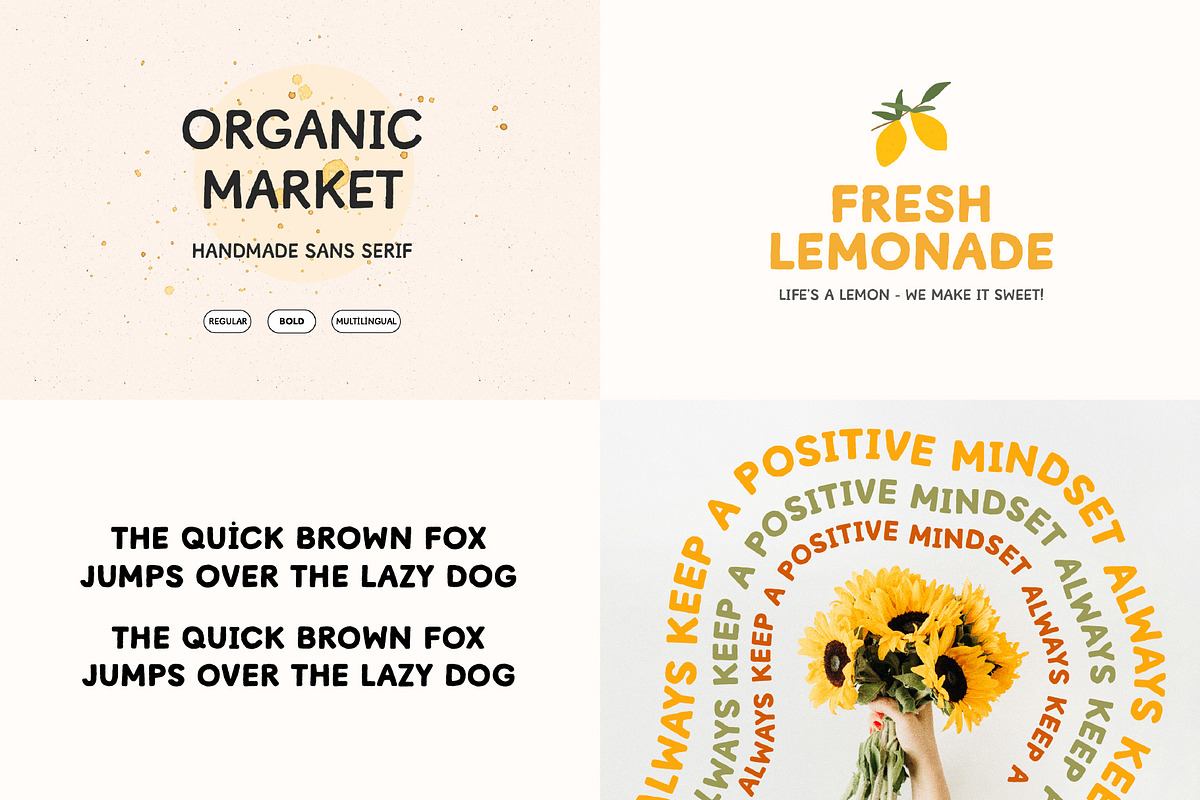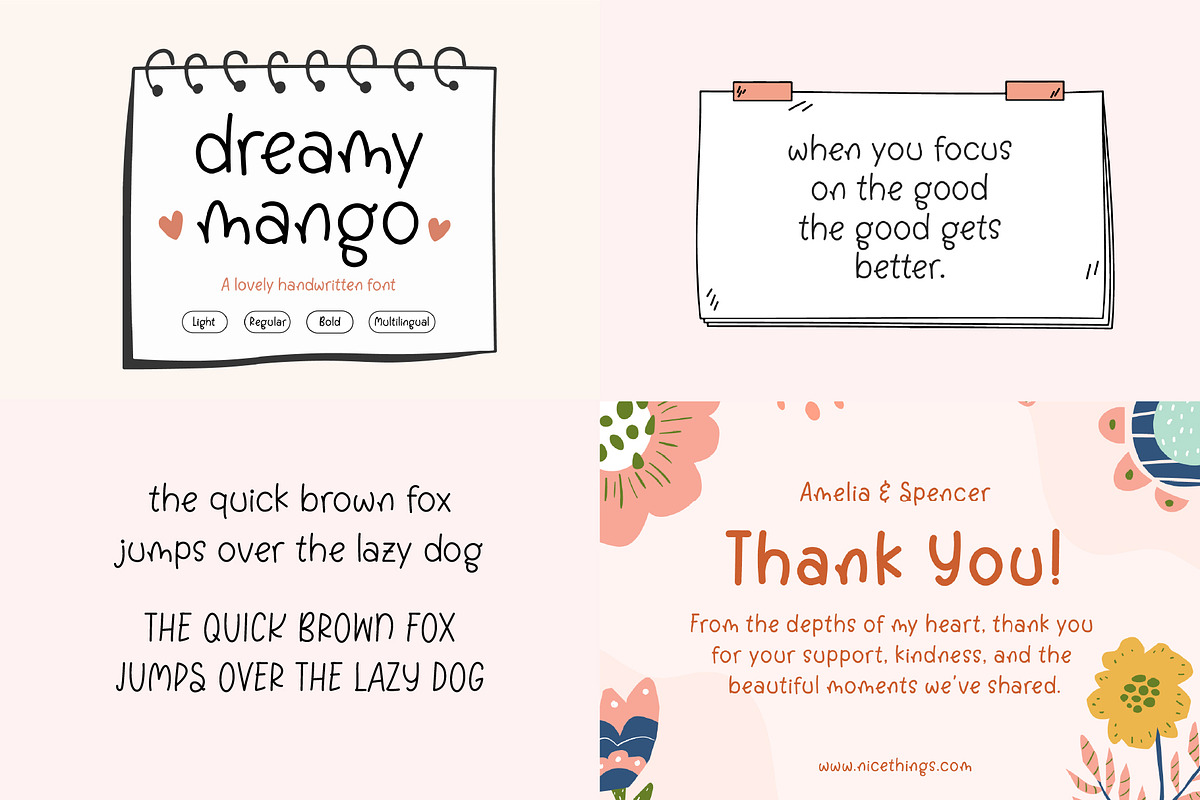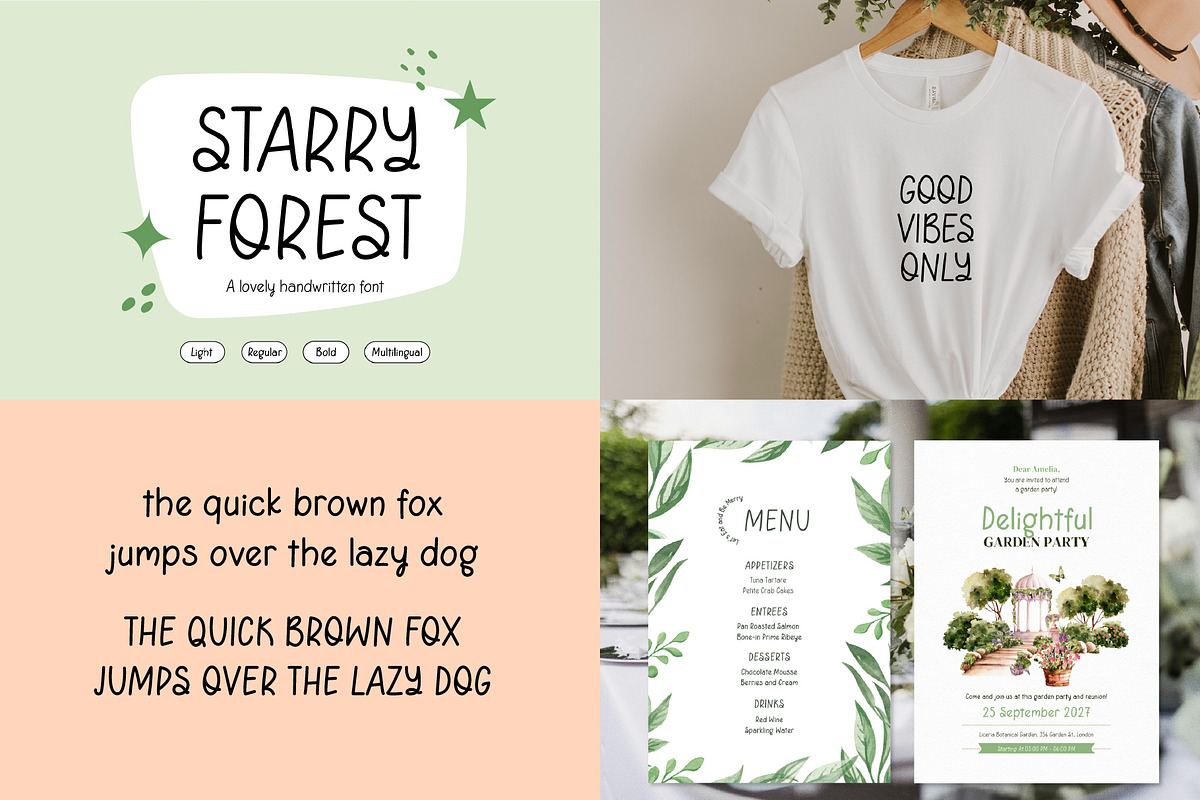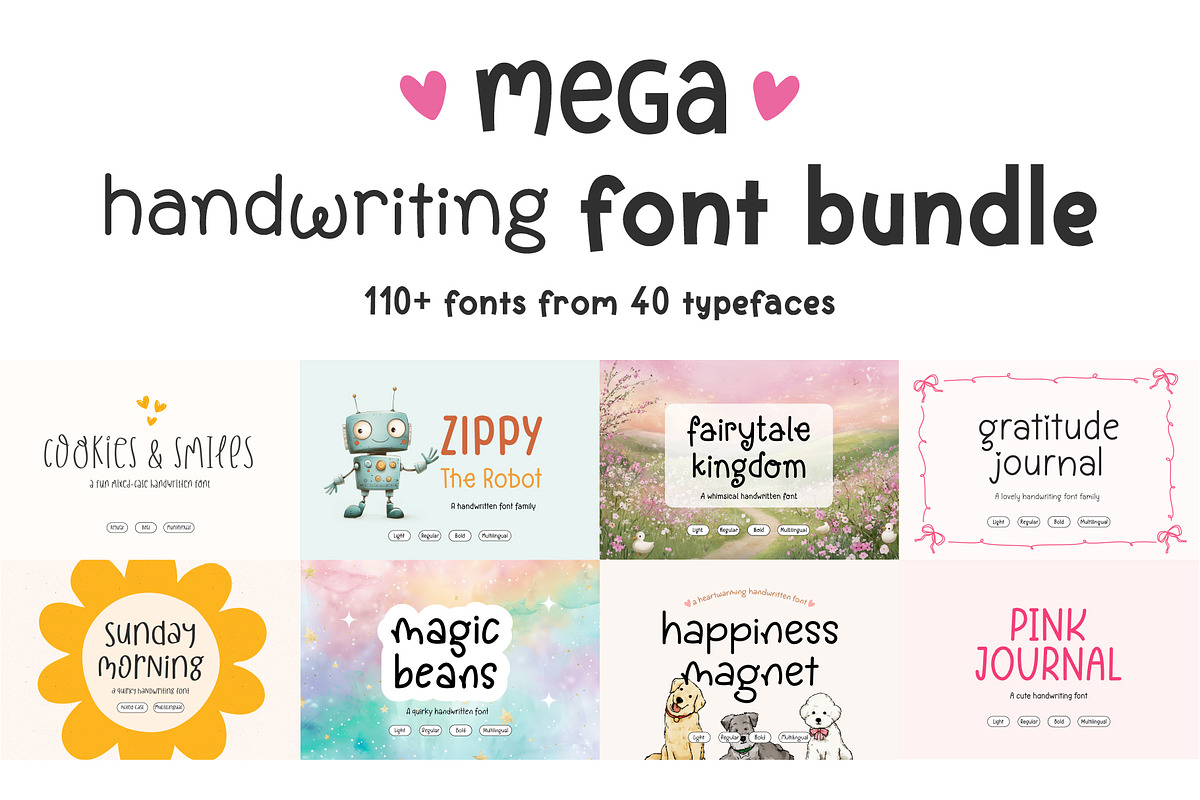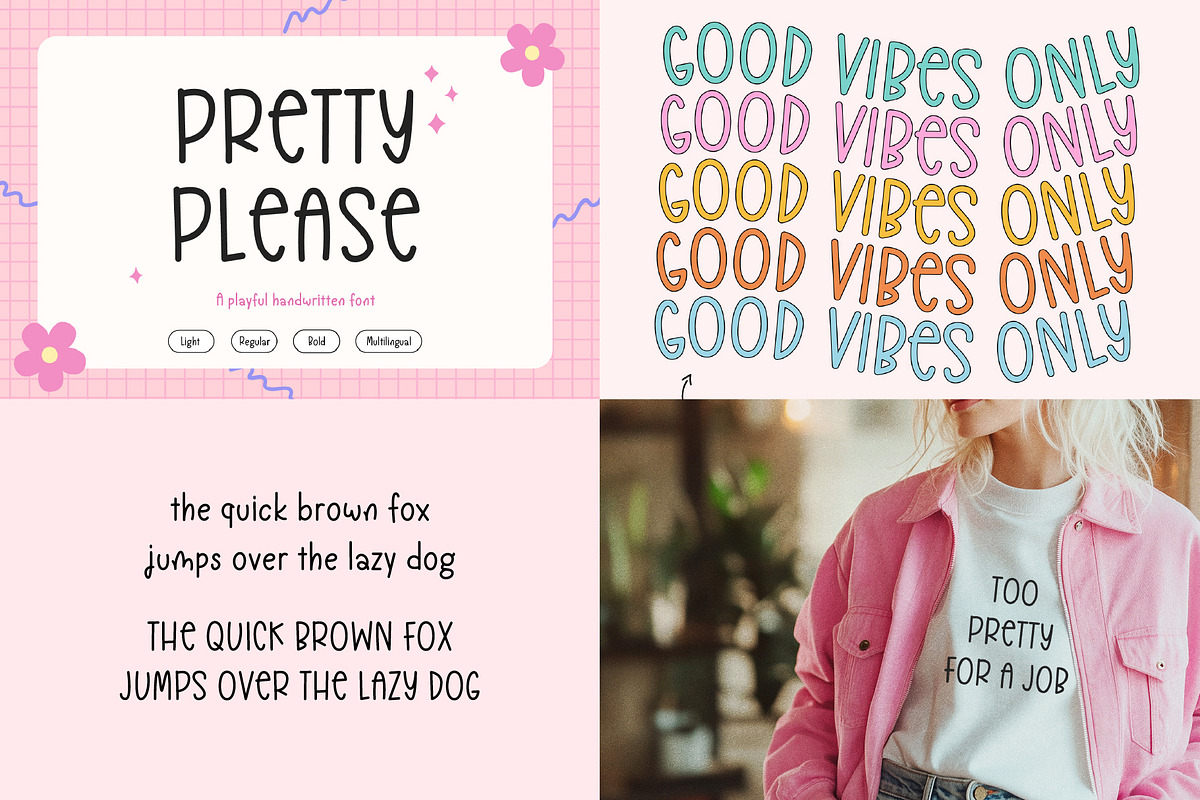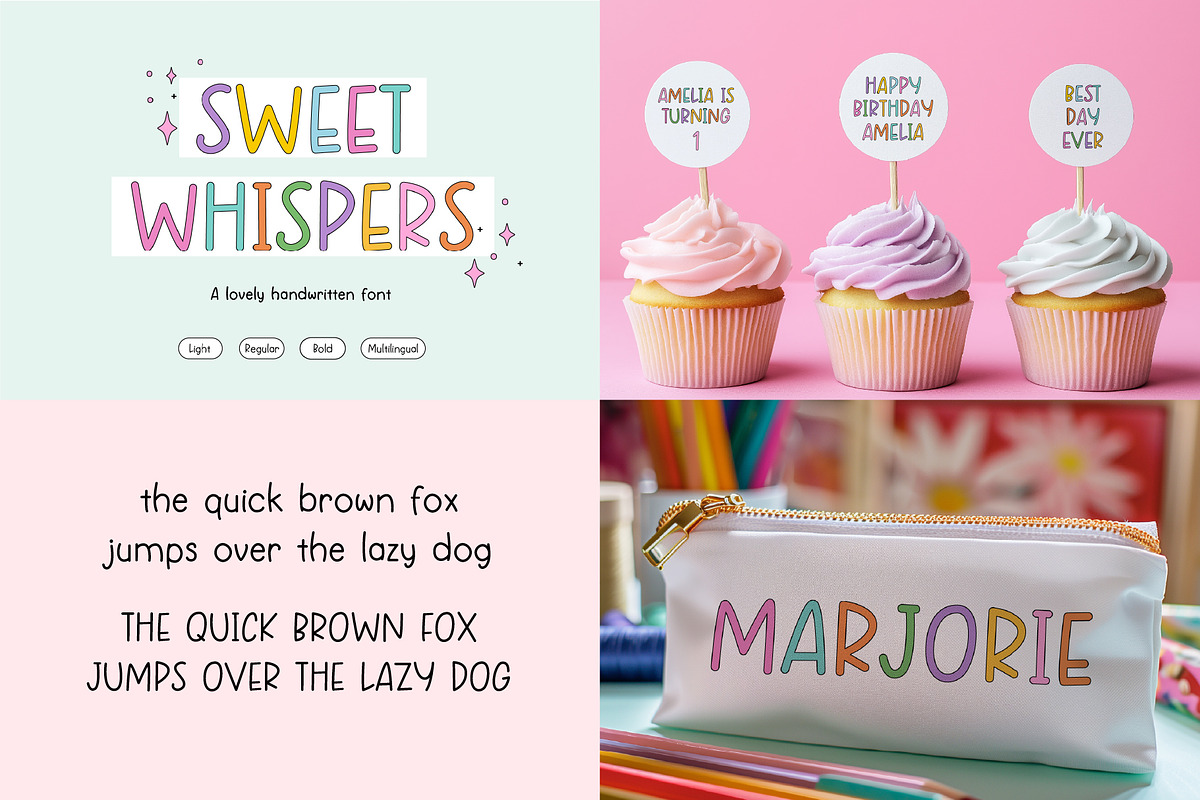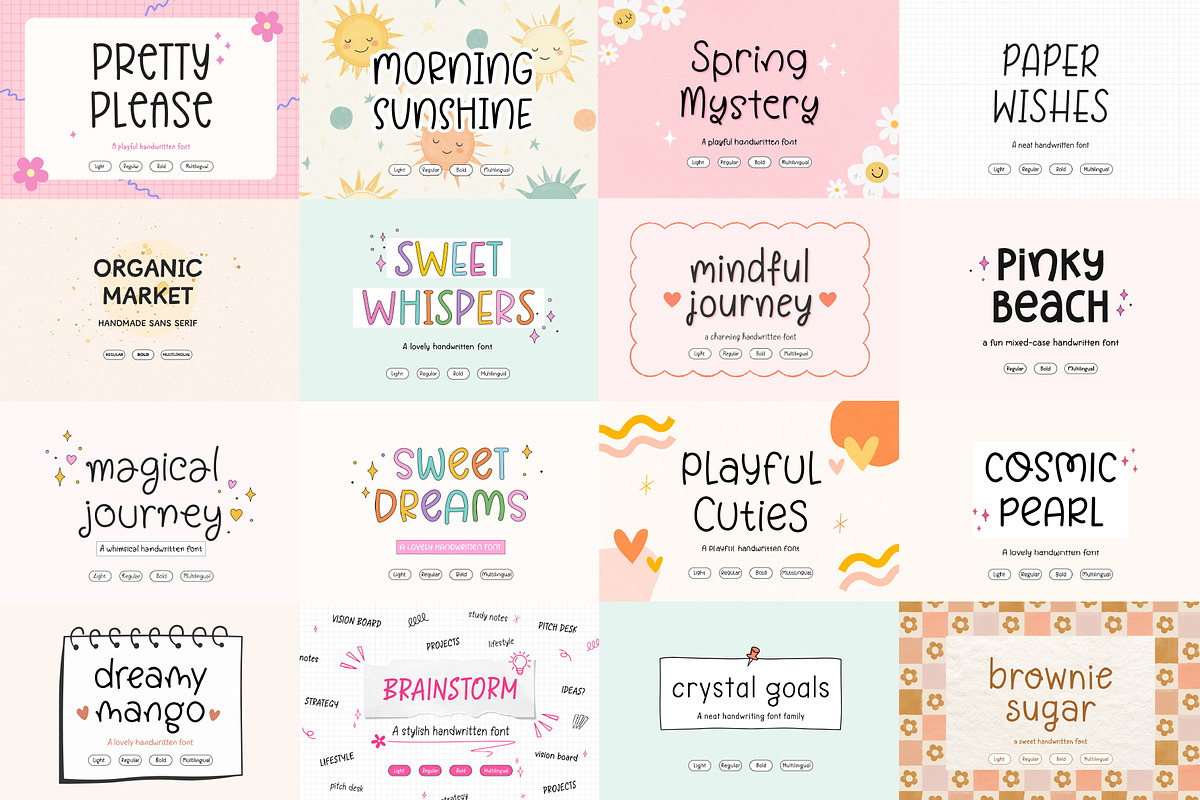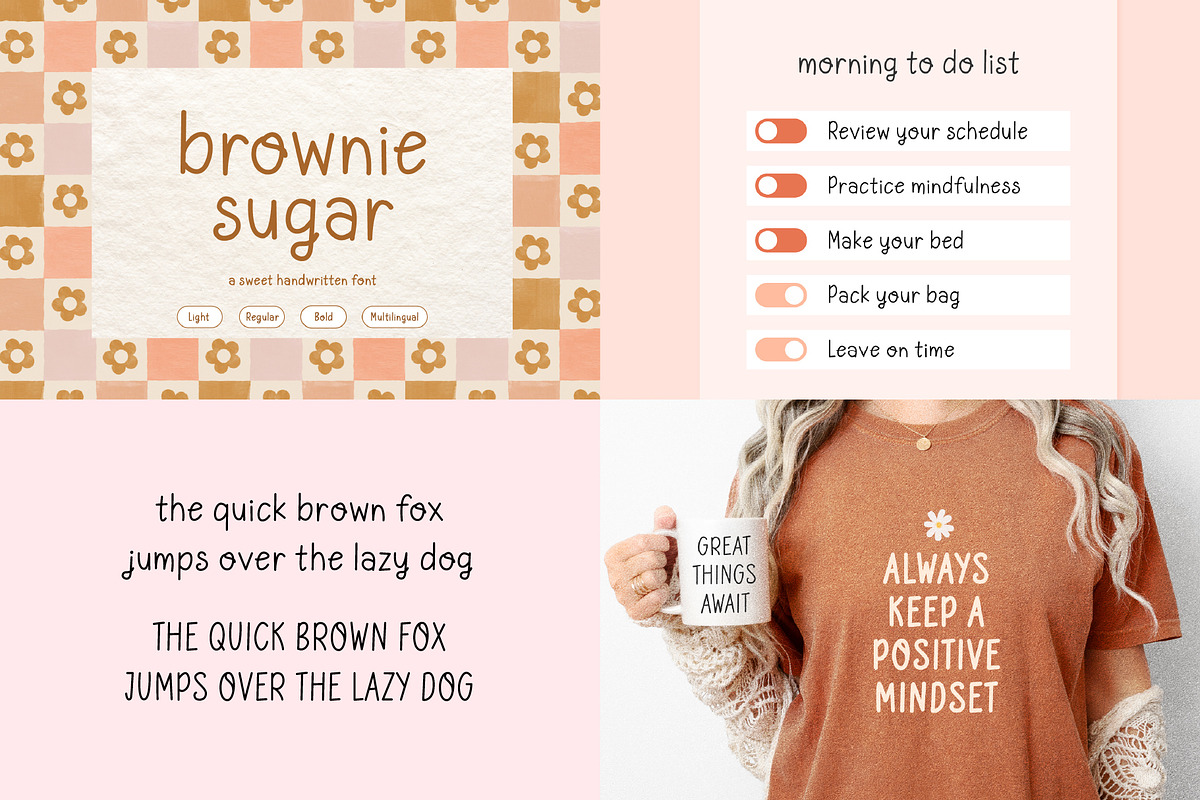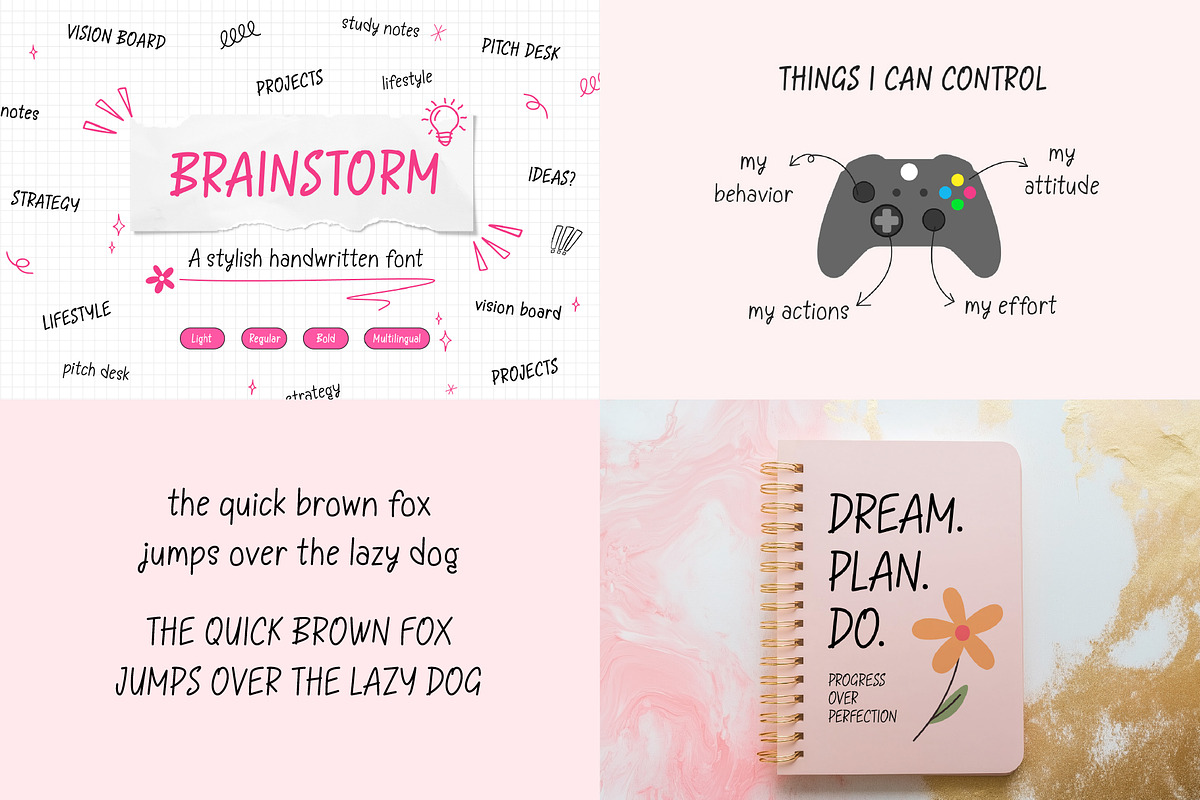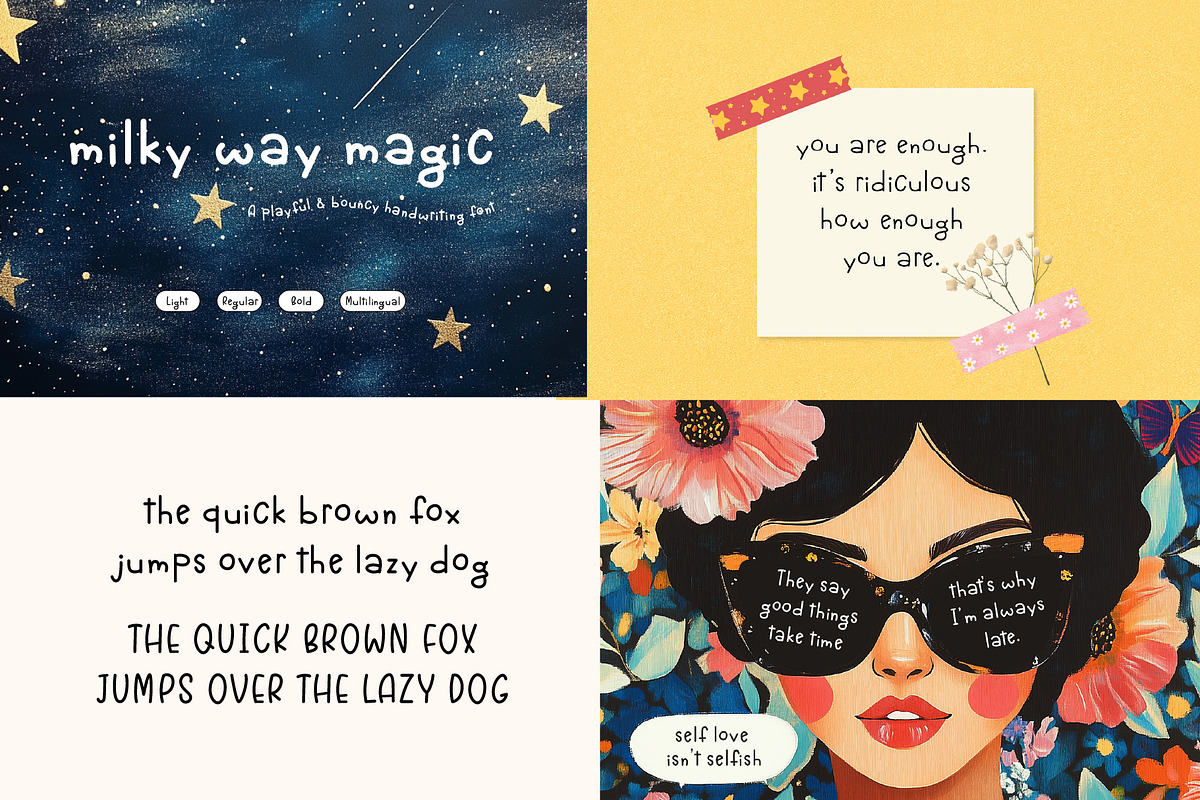
Mega Handwriting Font Bundle
I am so excited to present the Mega Handwriting Font Bundle, featuring 115 premium, hand-crafted fonts designed to add a personal and stylish touch to your creative projects. Whether you're working on planners, Cricut projects, invitations, or any design that calls for a beautiful handwritten feel, this bundle is for you.
- 40 High-Quality Handwriting Font Families (115 fonts in total): A carefully curated selection of fonts that cover a wide range of handwritten styles, from casual and playful to elegant and sophisticated. Perfect for planners, craft projects, stationery, quotes and more!
- Multiple Weights: Almost each of them comes with multiple variations, including regular, bold, and light versions, giving you maximum flexibility to suit your design needs.
- Multilingual Support: Every font in this bundle includes extensive multilingual support, ensuring that you can use them in various languages with ease, including accented characters for European and global languages.